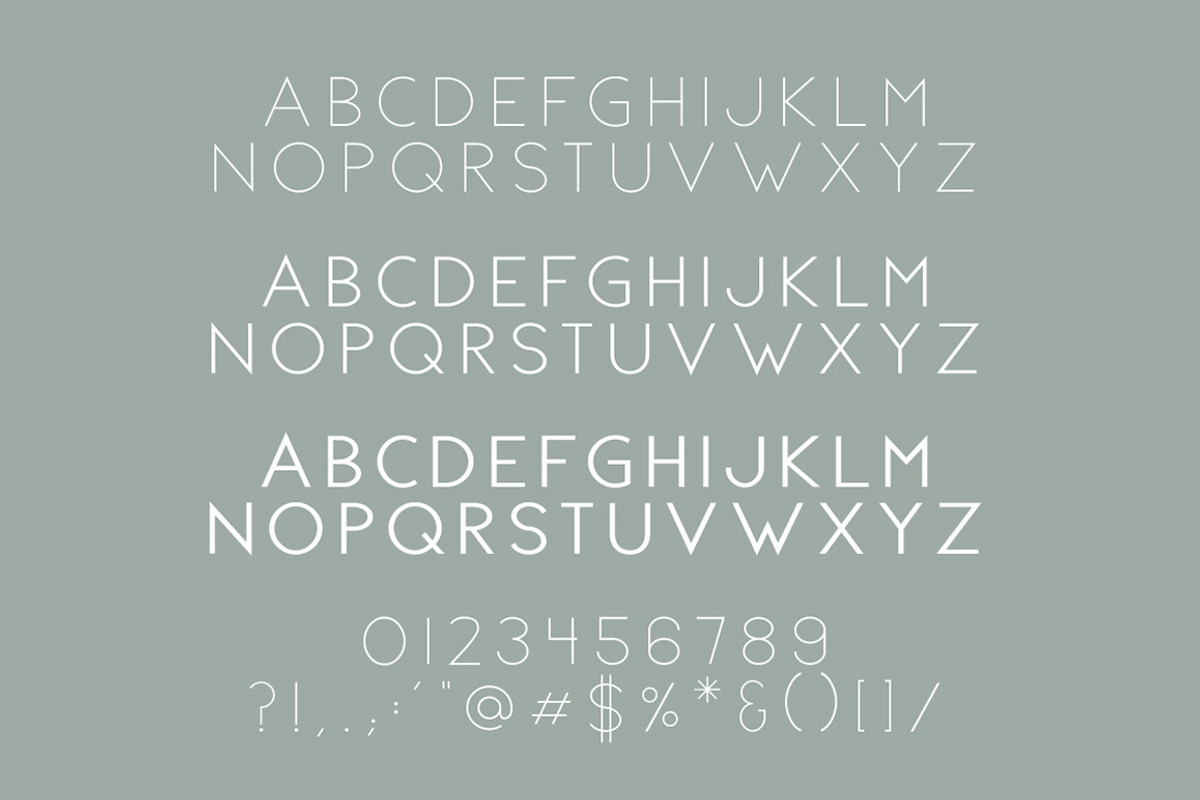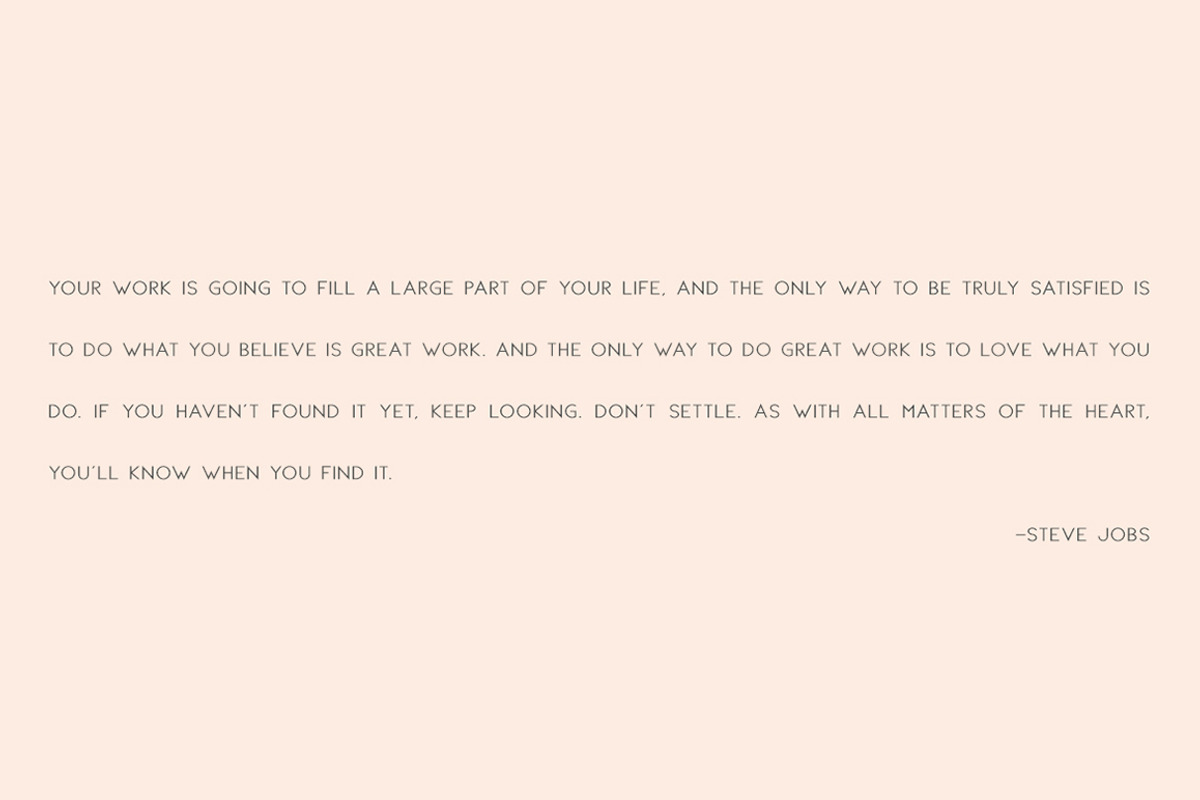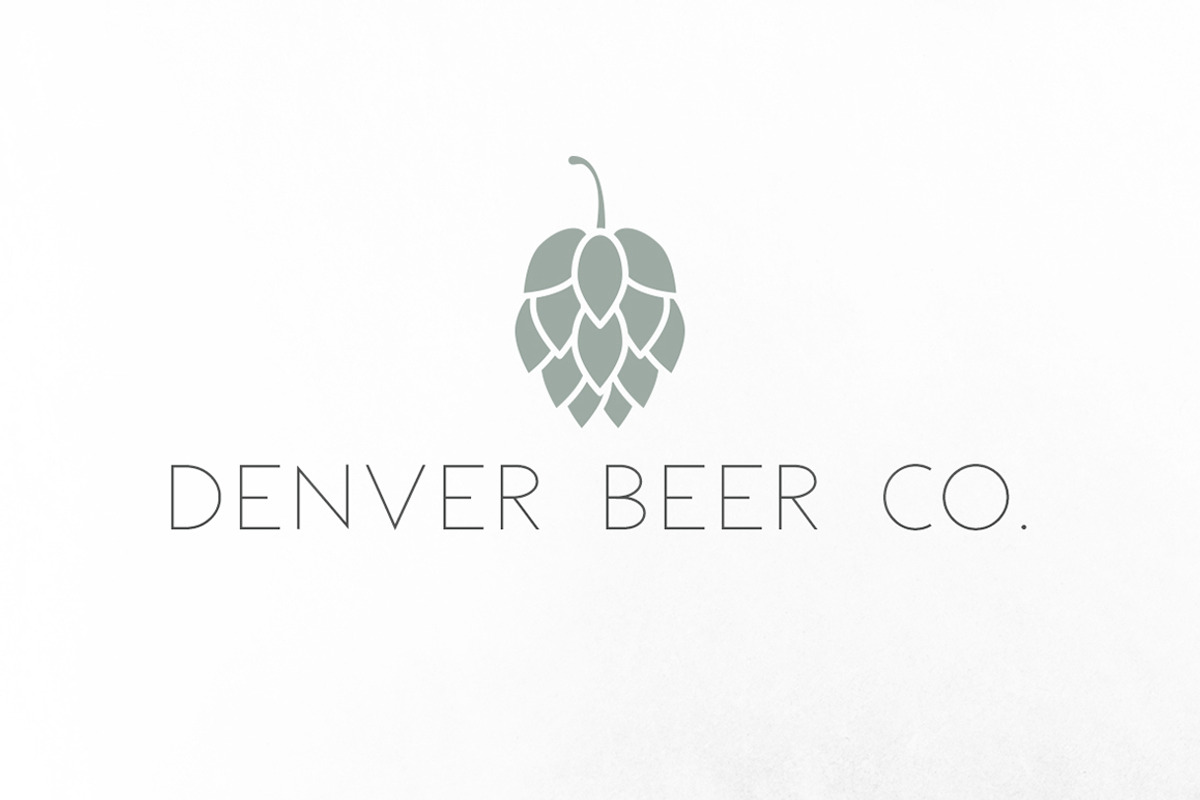
Denver is a romantic, timeless, and minimalistic all caps sans serif font that looks stunning in every context. With three different weights, it’s perfect for magazine layouts, invitations, headers, or even large-scale artwork.
Includes
- capital letters
- numbers & basic punctuation
- non-English characters
- three weights